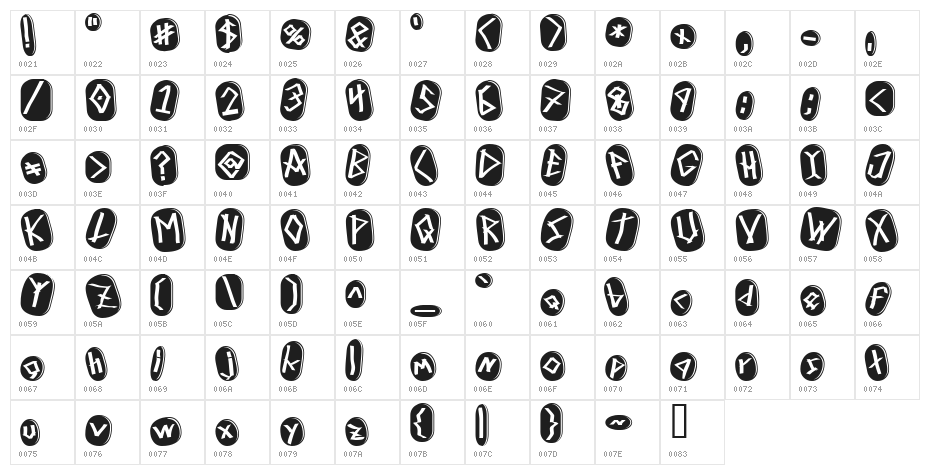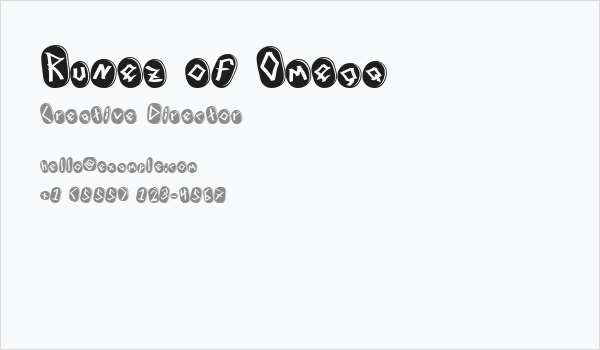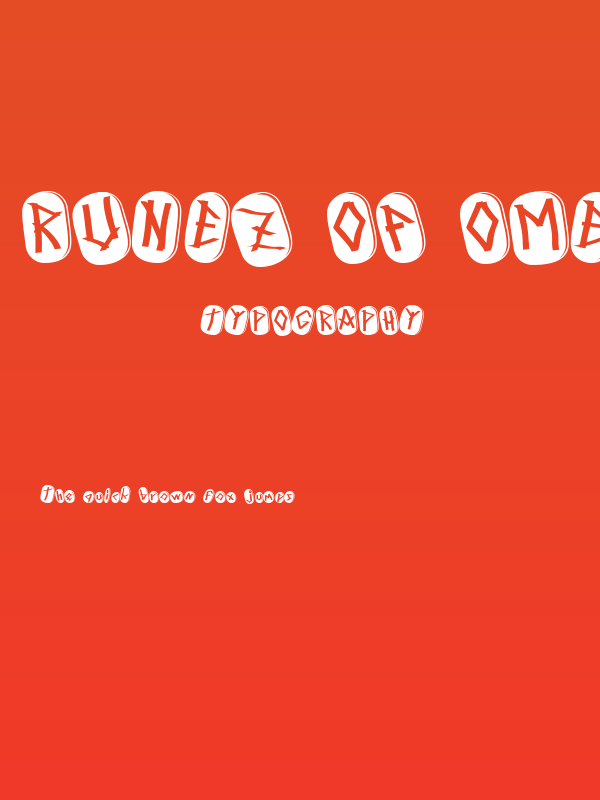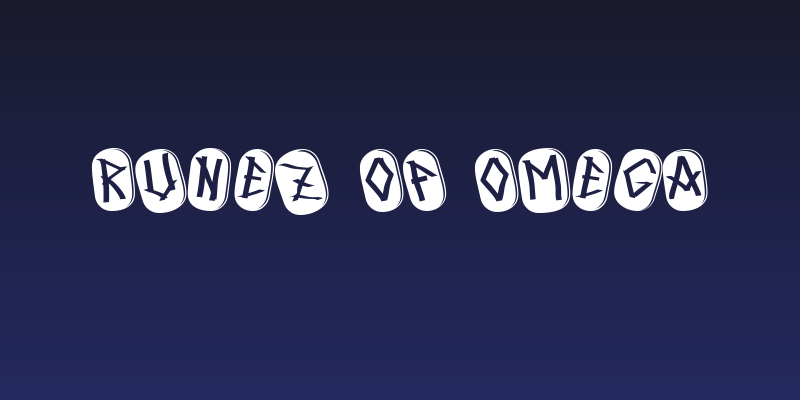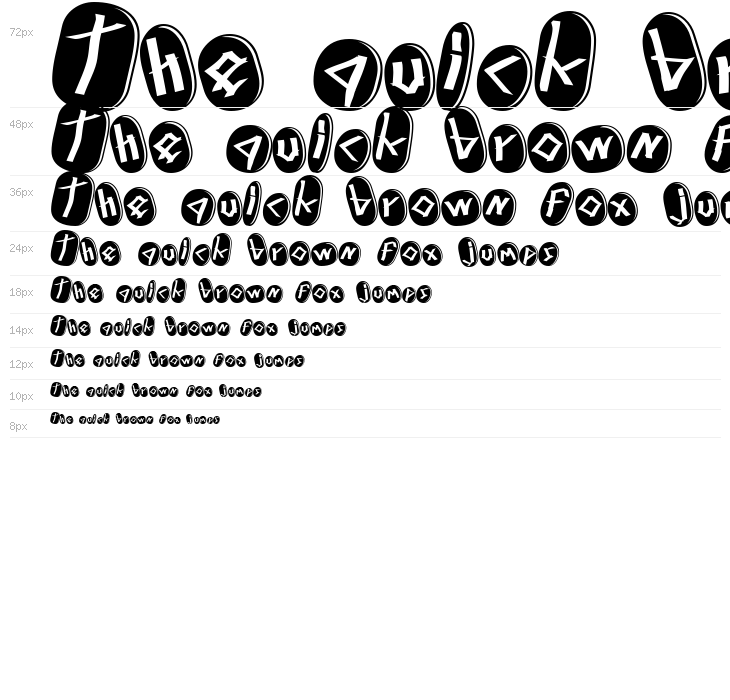
Runez of Omega Font
Runez of Omega Description
This font features a bold, decorative style with a unique, rune-like appearance. Each character is enclosed within an irregular, rounded shape, giving it a distinct, organic feel. The letters and numbers are crafted with angular, sharp lines that evoke a sense of ancient script or mystical symbols. The overall design is highly stylized, with a strong emphasis on individuality and creativity. The characters are evenly spaced within their enclosures, providing a consistent visual rhythm. This font is ideal for projects that require a touch of fantasy or a connection to ancient themes.
| Proposed Projects | Perfect for fantasy-themed designs, game titles, book covers, or any project needing a mystical or ancient touch. |